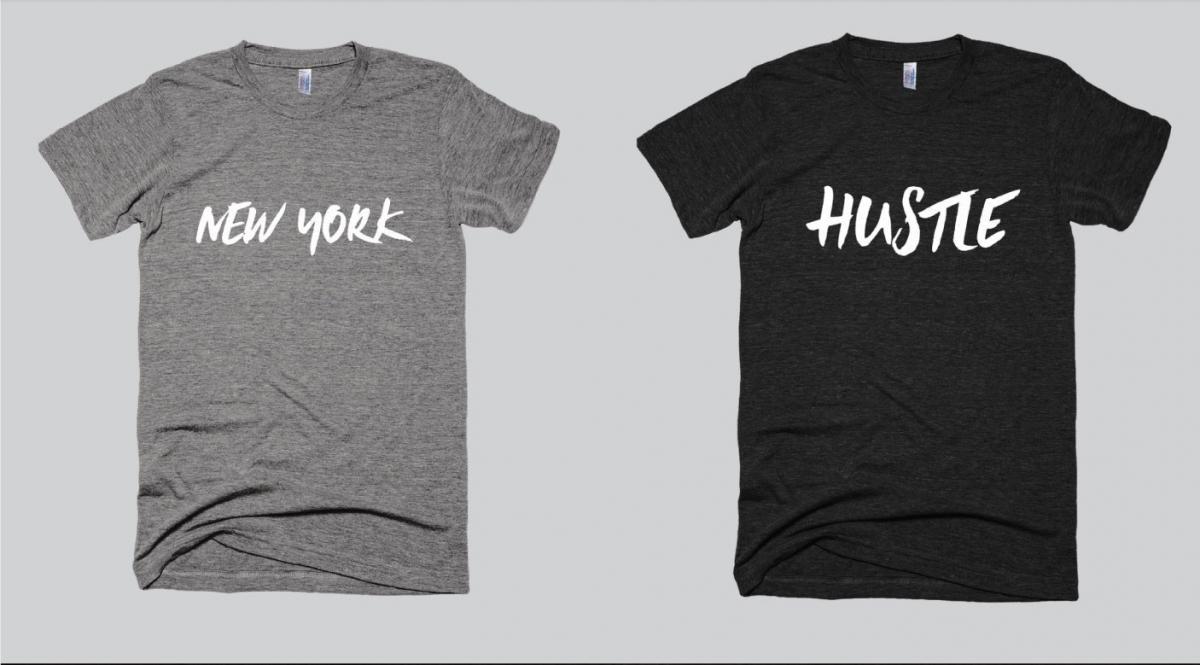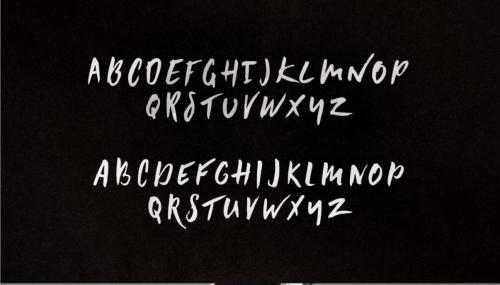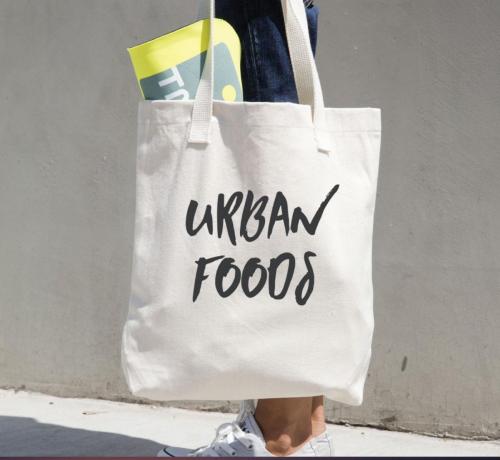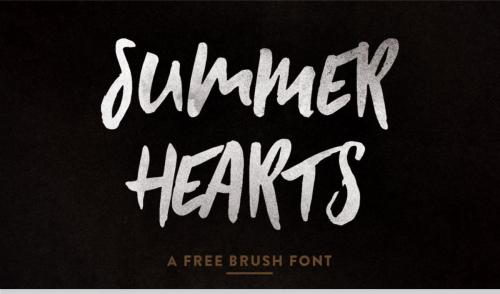
Summer Hearts Font is a hand painted All-Caps brush typeface from Hustle Supply Co., designed to be used with script typefaces or as a stand alone display typeface for Titling, Posters, Branding, Logo Design, Etc.